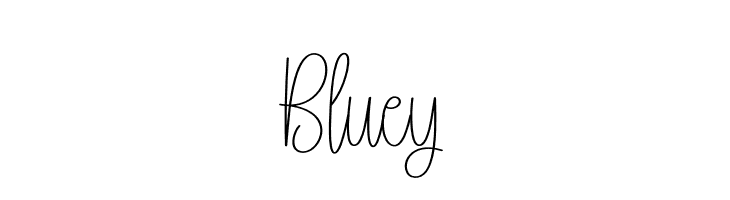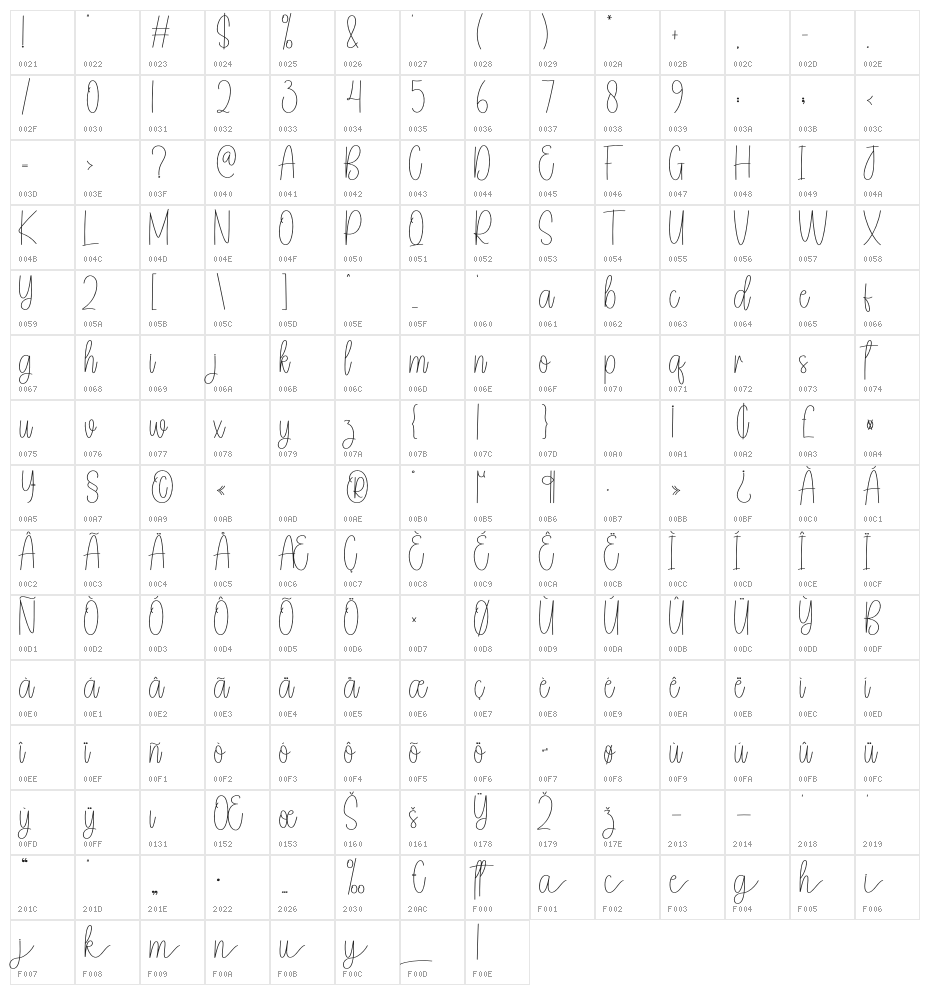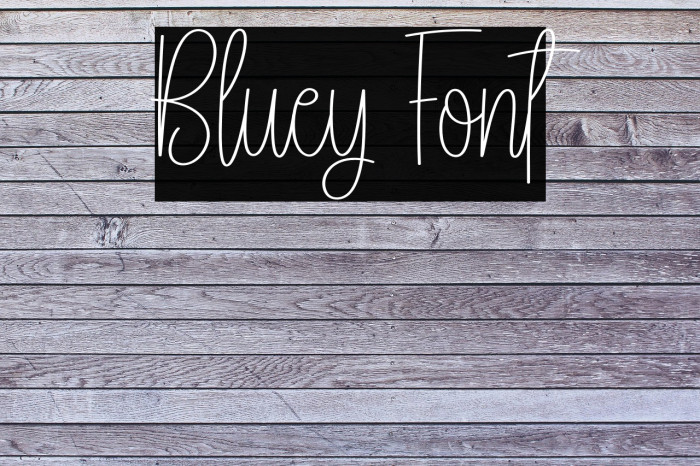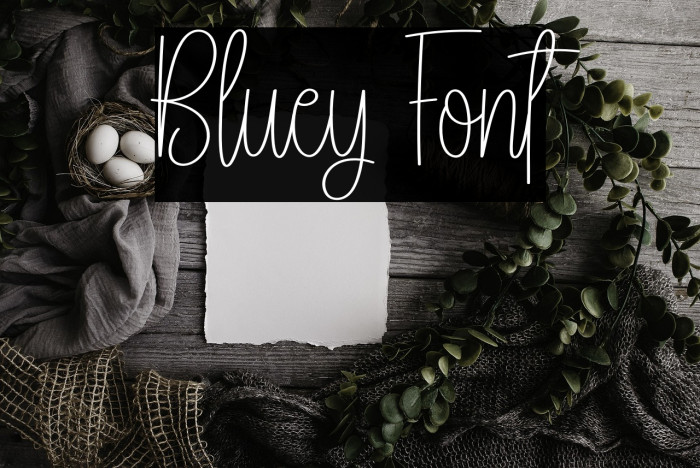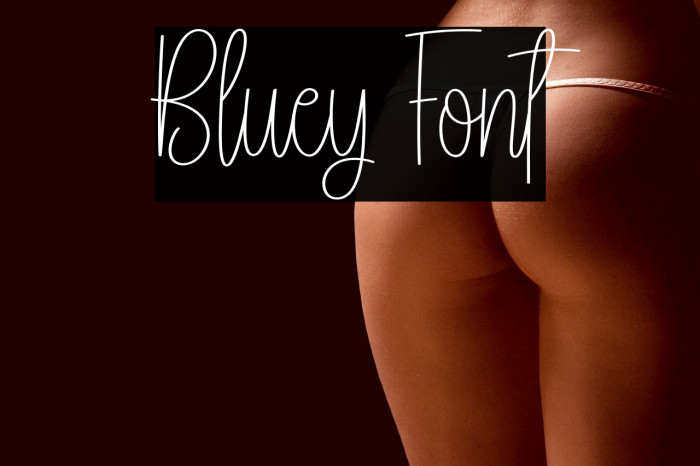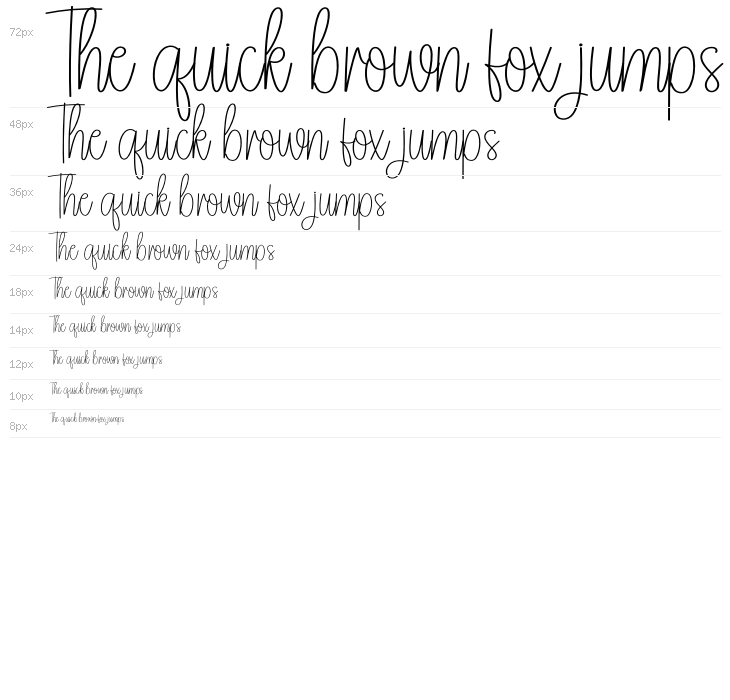
Bluey Font
Bluey Description
A playful, handwritten font with tall, narrow letters and a whimsical style.
Fonts by Andi Moz
| Width | Condensed |
| Overall Style | Whimsical |
| Use Case | Headlines, Decorative text |
| Proposed Projects | Greeting cards, children's books, playful branding. |